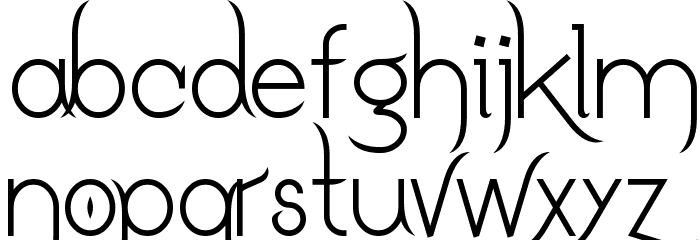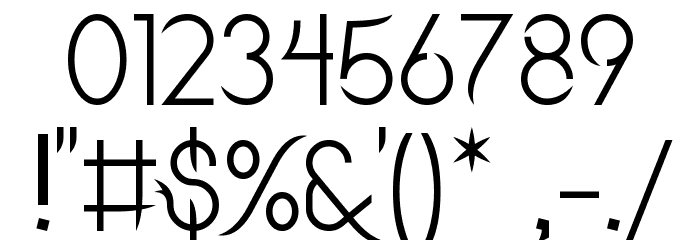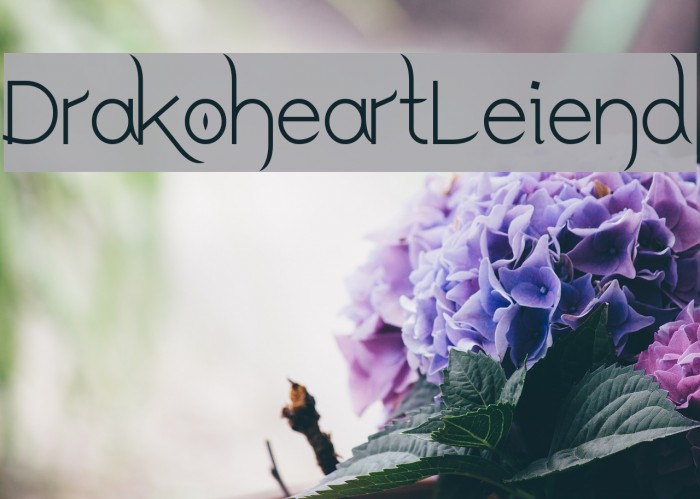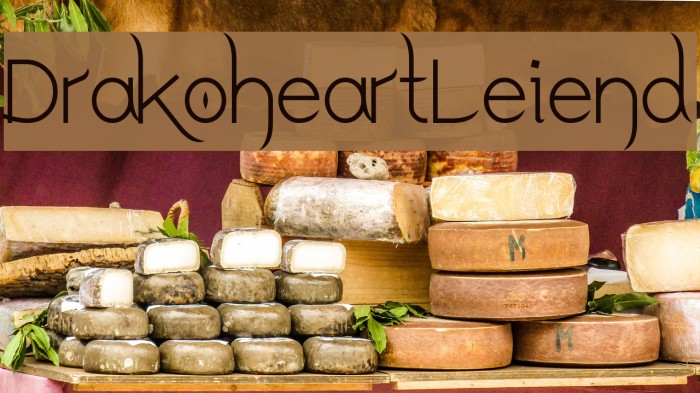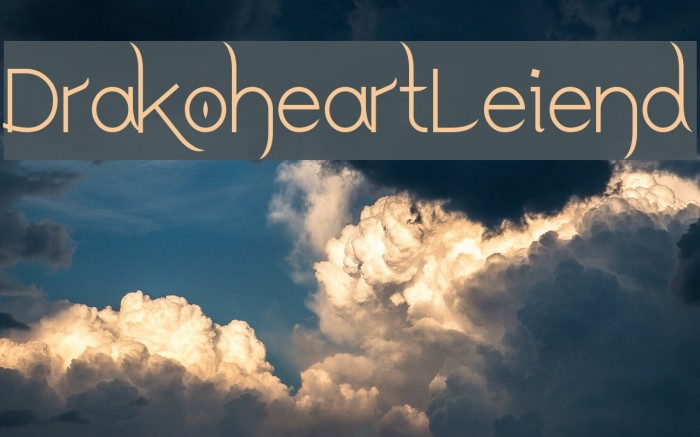
DrakoheartLeiend Font
This font features a unique blend of modern and decorative styles, characterized by its elegant curves and sharp angles. The uppercase letters exhibit a distinct flair with elongated strokes and subtle serifs, giving them a sophisticated appearance. The lowercase letters maintain a consistent style, with smooth transitions and a slight slant that adds a dynamic feel. Numbers are designed with clarity and precision, making them easily readable. Special characters are crafted with attention to detail, complementing the overall aesthetic. The font's design is both artistic and functional, suitable for various creative applications.
A modern decorative font with elegant curves and sharp angles.
- Proposed Projects: Ideal for branding, logos, headlines, and artistic projects that require a touch of elegance and modernity.
- Overall Style: Modern, Decorative
- Use Case: Headlines, Logos, Artistic projects